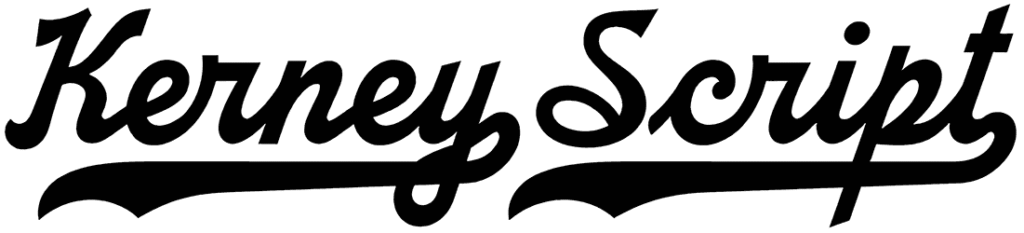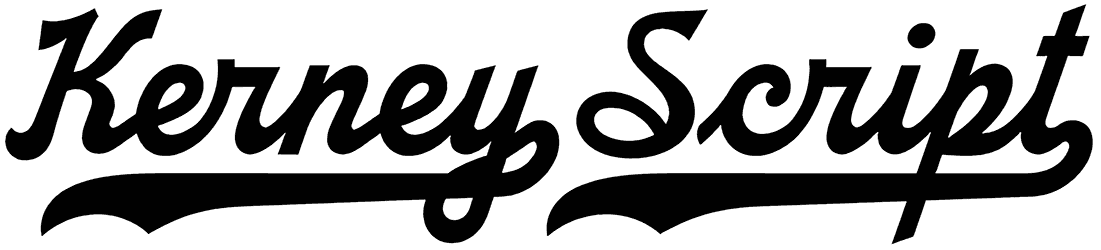
Kerney Script Font
Let’s say your new project needs a script lettering visual with a classic mood. So, this baseball font can do what you desire. Kerney Script font has smooth lines with a captivating face, which will throw a cool vibe into your project. Although this script font doesn’t have numbers, it can serve as a nice choice for many ideas, such as a team logo or a sports poster.
http://mn.sg/kerney-scriptA sporty calligraphy, this retro lettering will be your go-to style for a fresh team logotype or a vintage headline. Drawn and created by Mans Greback, Kerney Script has a competitive style and a bold personality.
Use underscore _ to make a swash.
Example: Letter_
Use multiple underscores to make longer swashes.